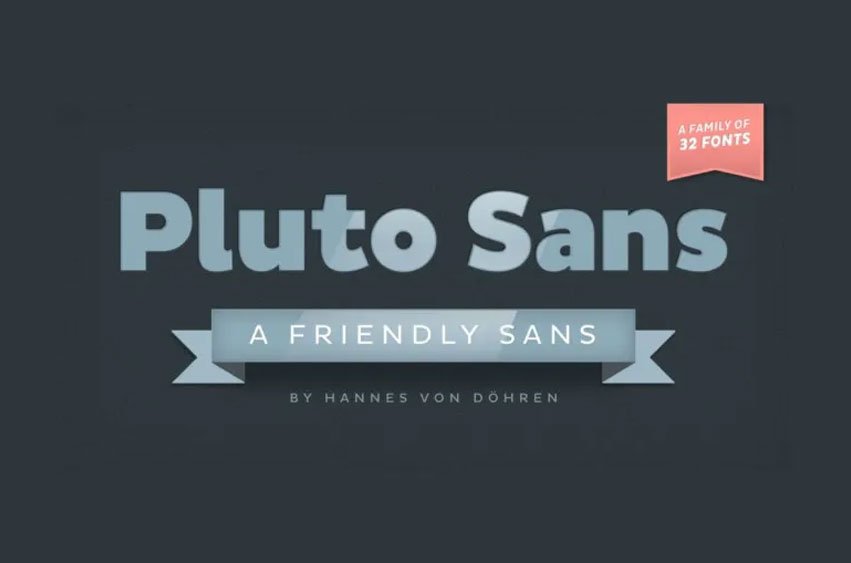
Pluto Sans Font is a multi-weight humanist sans-serif font family consisting of 16 Italics and 16 Uprights across 32 fonts, inspired by Pluto design. With geometric forms and large x-height it provides comforting vibe. Perfect for use both print and screen based environments. These fonts also share similar styles and weights making for an excellent combination.
Pluto Sans is designed for advanced professional typography, featuring OpenType fonts equipped with an extended character set that supports Central, Eastern European and Western European languages. Each font offers alternative letters, fractions tabular numbers from scientific research as well as lining inferior and superior figures from scientific research; additionally it has an array of Arrows for ease of use.